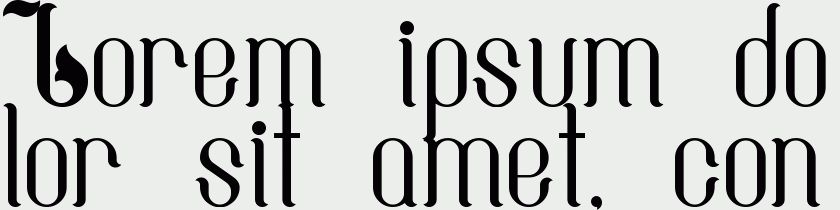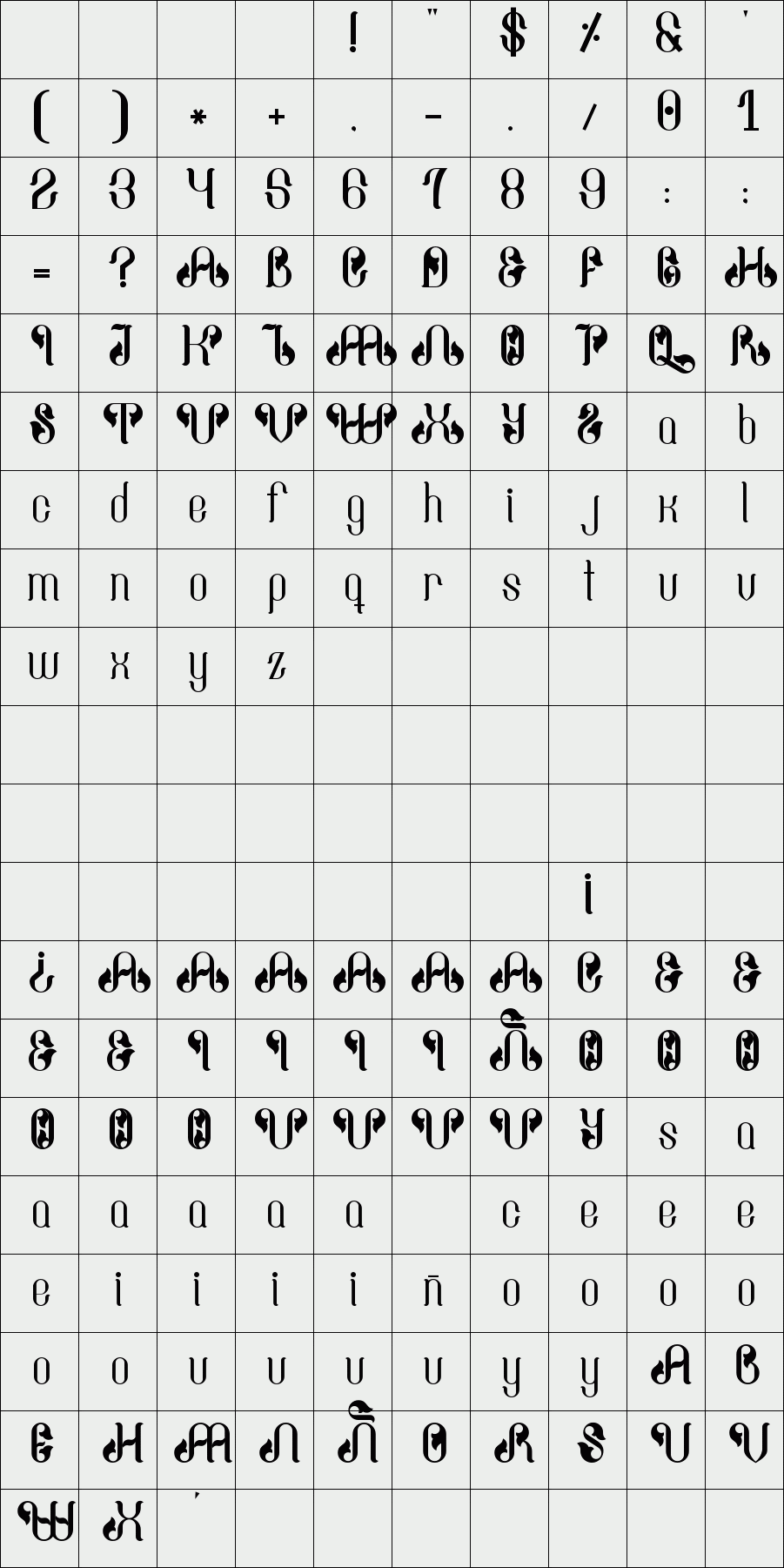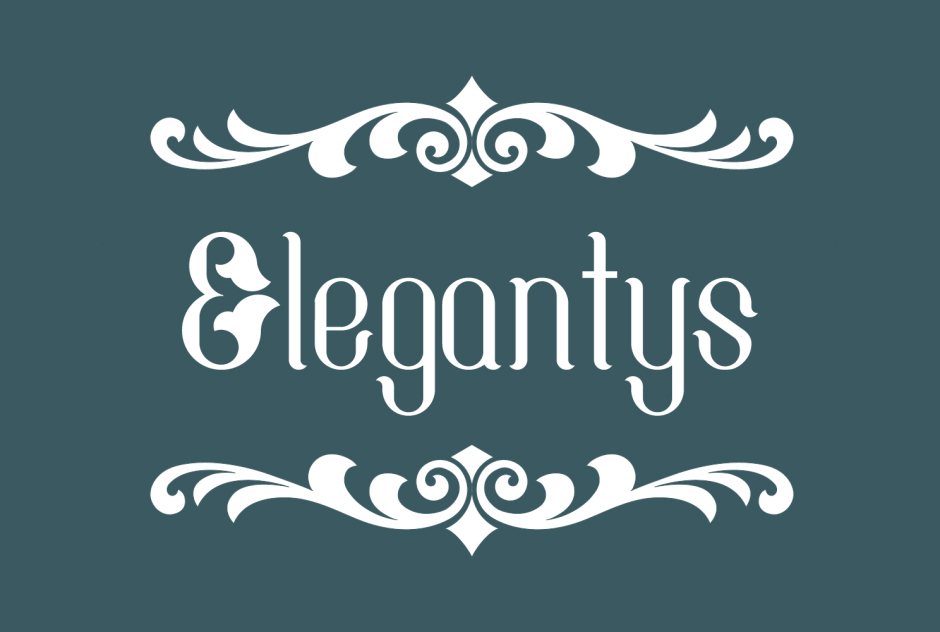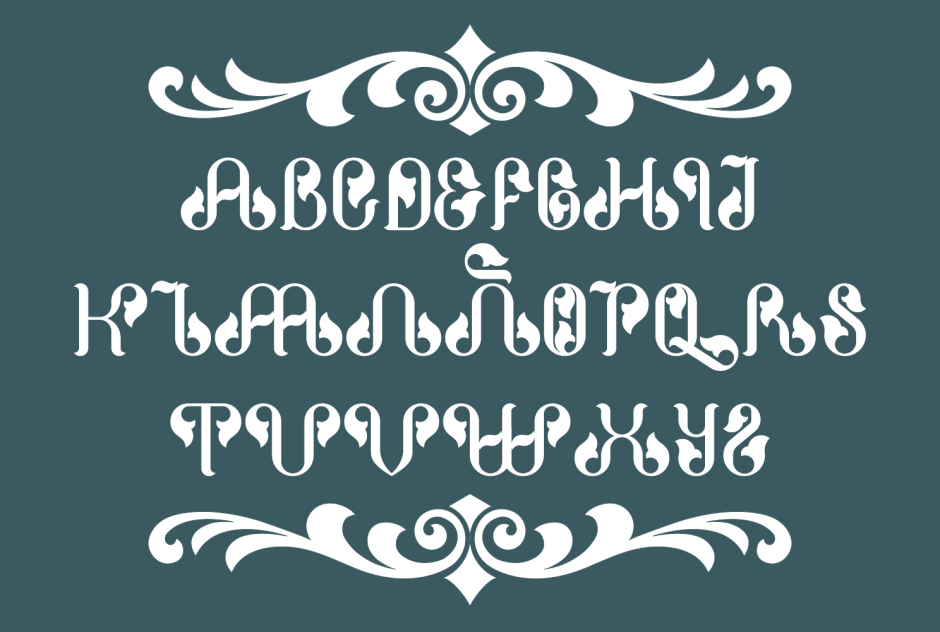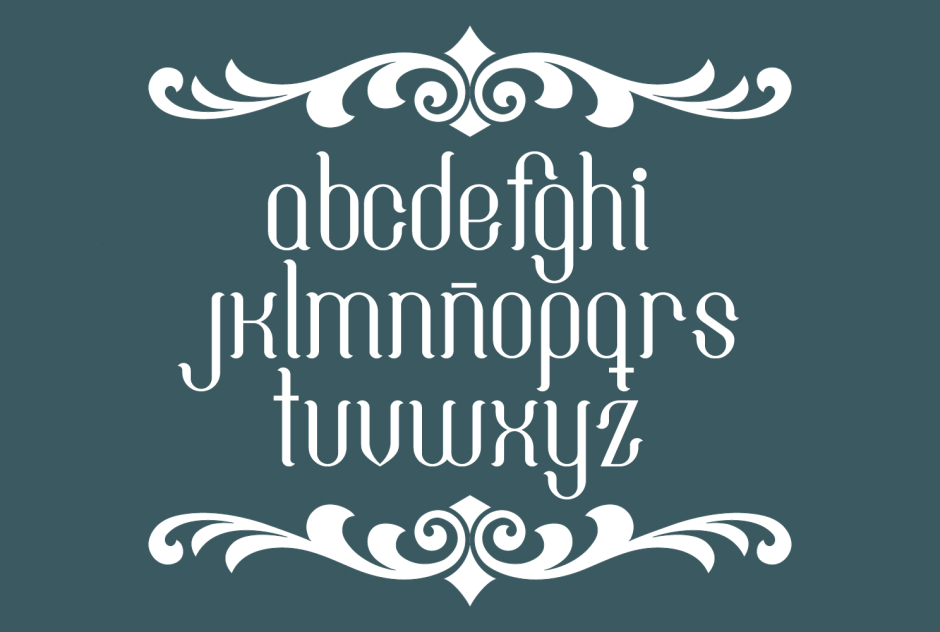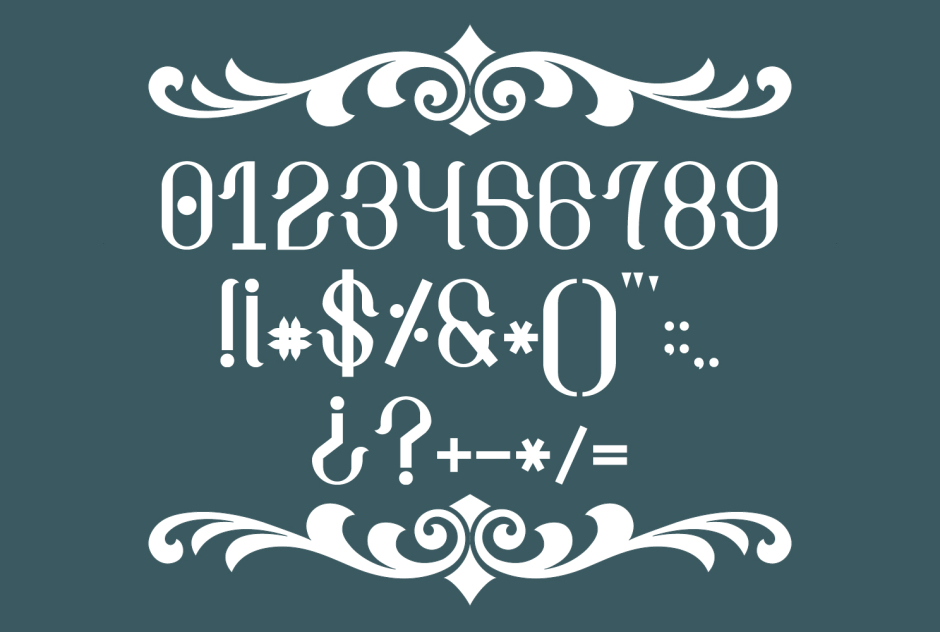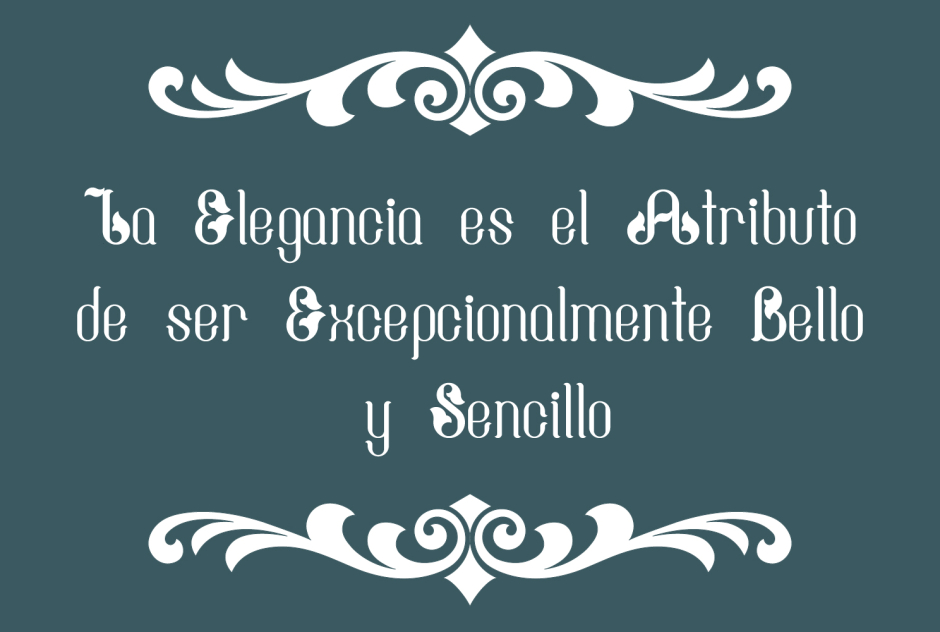
Elegantys
This Typography was created looking for an elegant and modern way
Characteristics of the font:
Elegantys Font
Letter Set (A-Z)
Letter set (a-z)
Set of numbers (0-9)
Symbols set.
Some letters have been kerning.